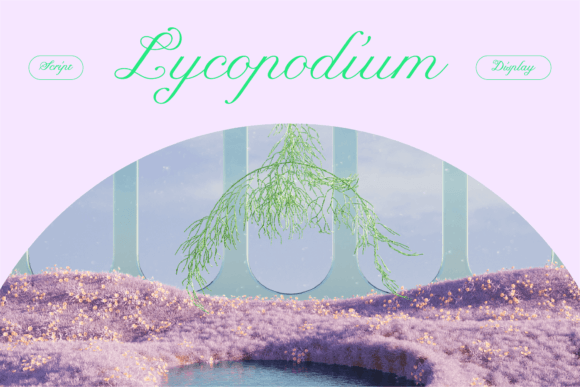
Unleash your creativity with Lycopodium Font, a captivating display script font that dances across your designs like a whimsical symphony. Inspired by nature's allure, this font captures the essence of Lycopodium casuarinoides, a native plant of Taiwan, with its long, winding stems and delicate flourishes.
Embark on a typographic adventure with Lycopodium's enchanting strokes and graceful curves. Each character bears the mark of meticulous craftsmanship, evoking the elegance of copperplate calligraphy, while the exaggerated flourishes add a touch of captivating drama.
Indulge in the visual feast as Lycopodium's unique charm unfolds. Witness the mesmerizing play of alternating styles at the ends of strokes and hairlines, reminiscent of vine-like branches swaying in the breeze. Each letter is a work of art, a testament to the boundless creativity that resides within this remarkable font.
With Lycopodium, your designs will radiate an aura of sophistication and elegance. Enchant your audience with invitations, posters, logos, and branding that exudes a timeless charm. Let Lycopodium's allure captivate the hearts and minds of your customers, leaving them spellbound by the sheer beauty of your creations.
Embark on this typographic odyssey and let Lycopodium elevate your designs to new heights of artistry. Embrace the allure of nature's inspiration and watch as your projects blossom into masterpieces. Lycopodium awaits your artistic touch, ready to weave its magic into the fabric of your creative endeavors.